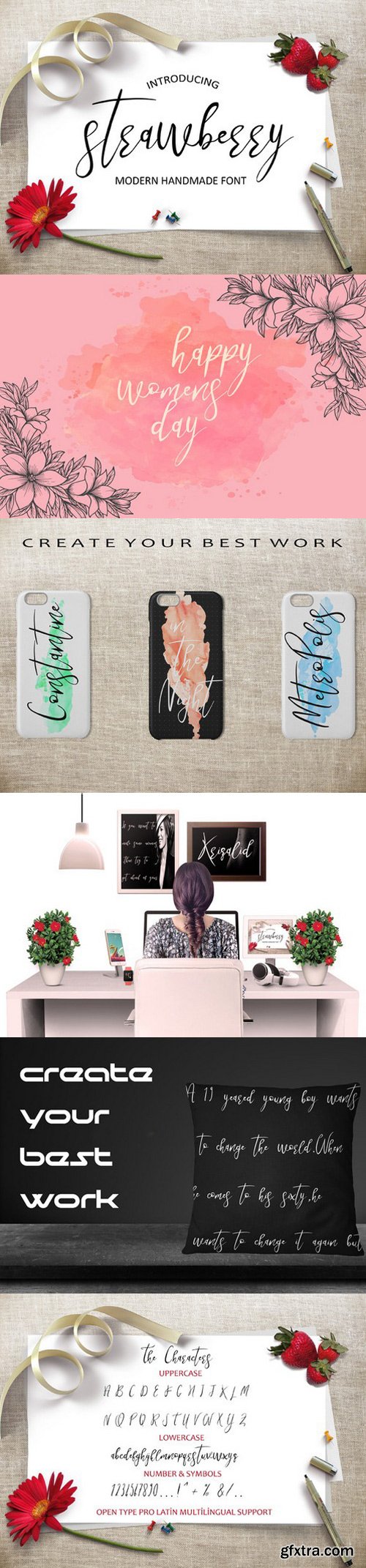
Strawberry is guaranteed to make your text stand out perfect for cards, printed quotes, logos, product packaging, invitations, book cover,frame writings,